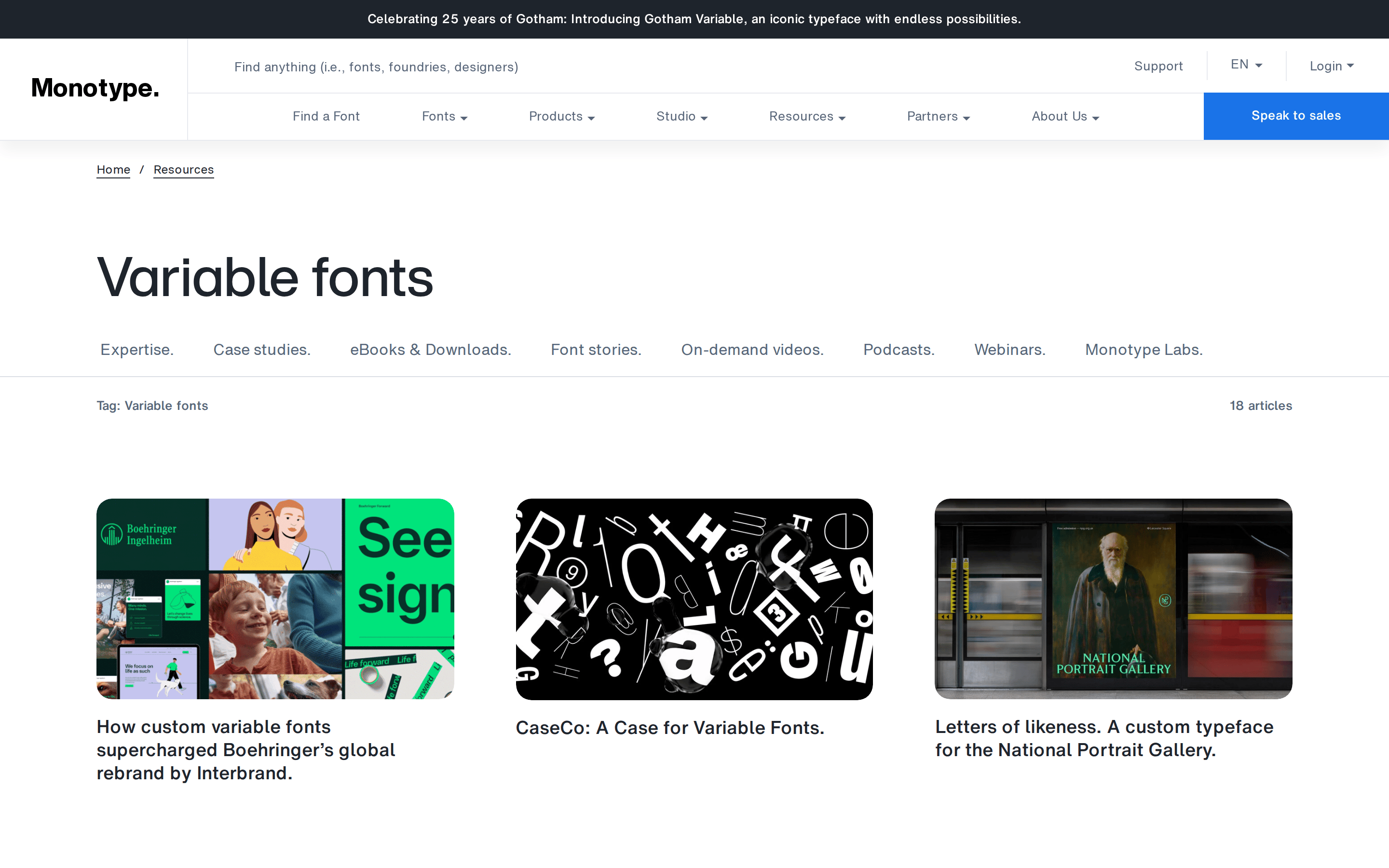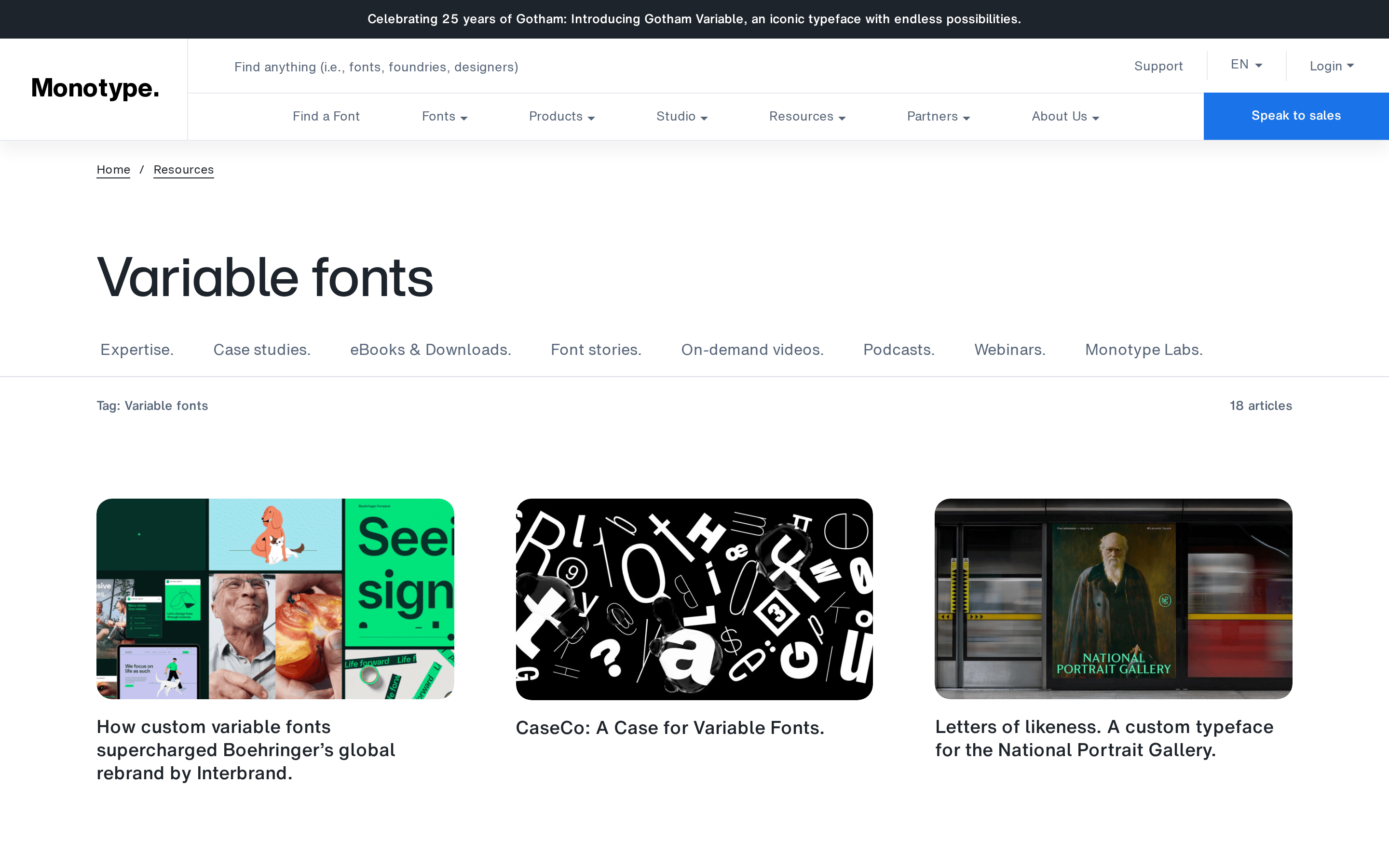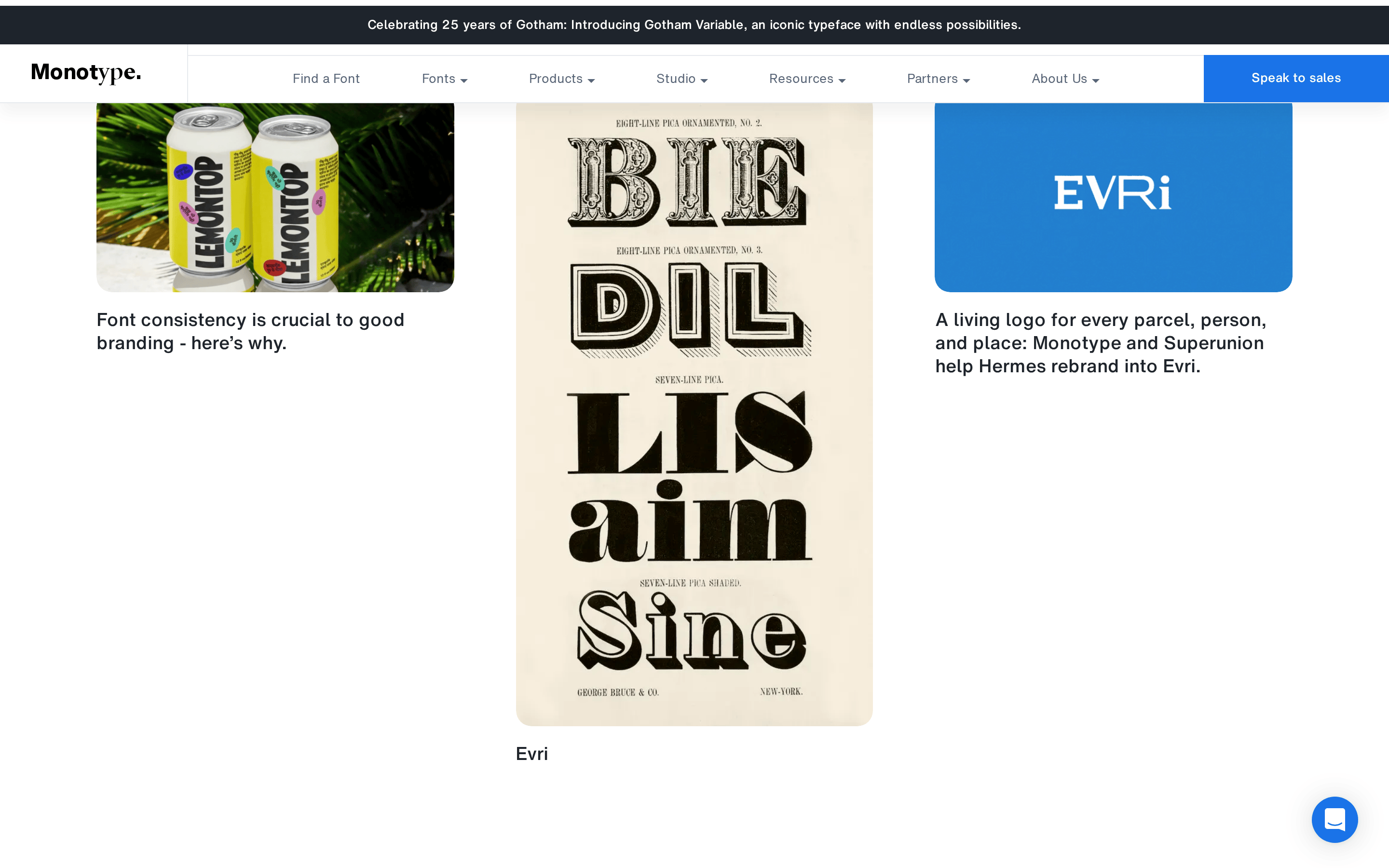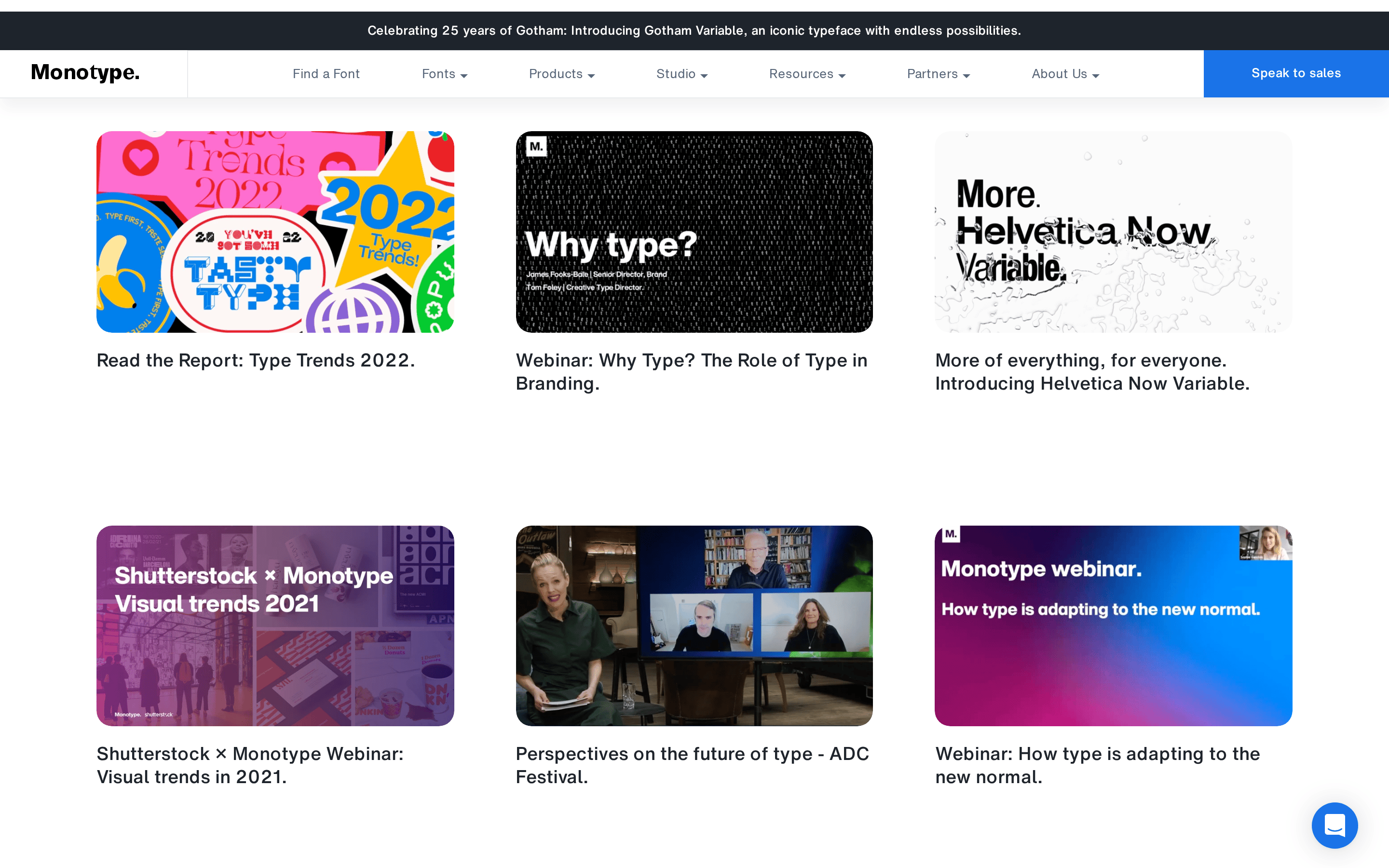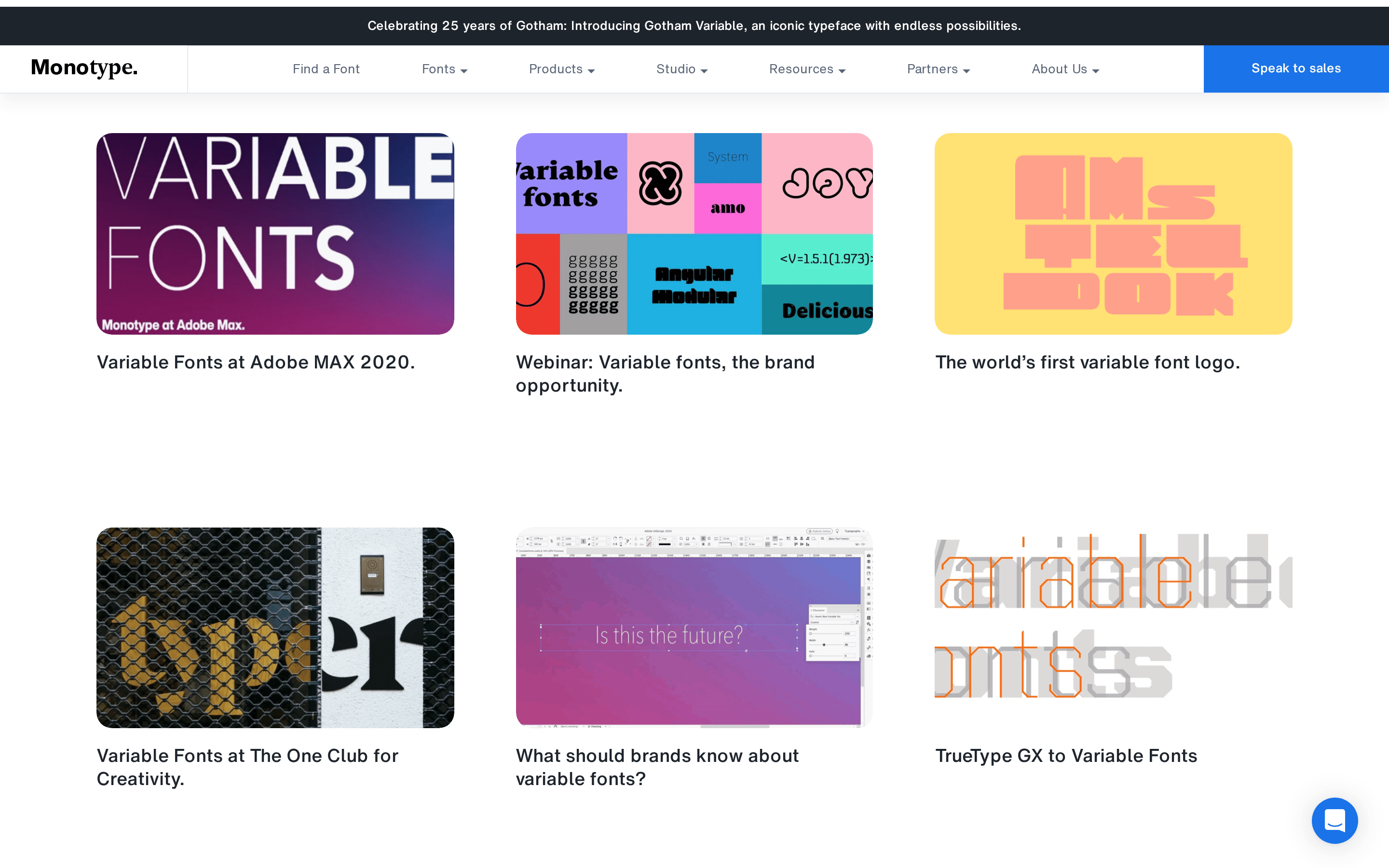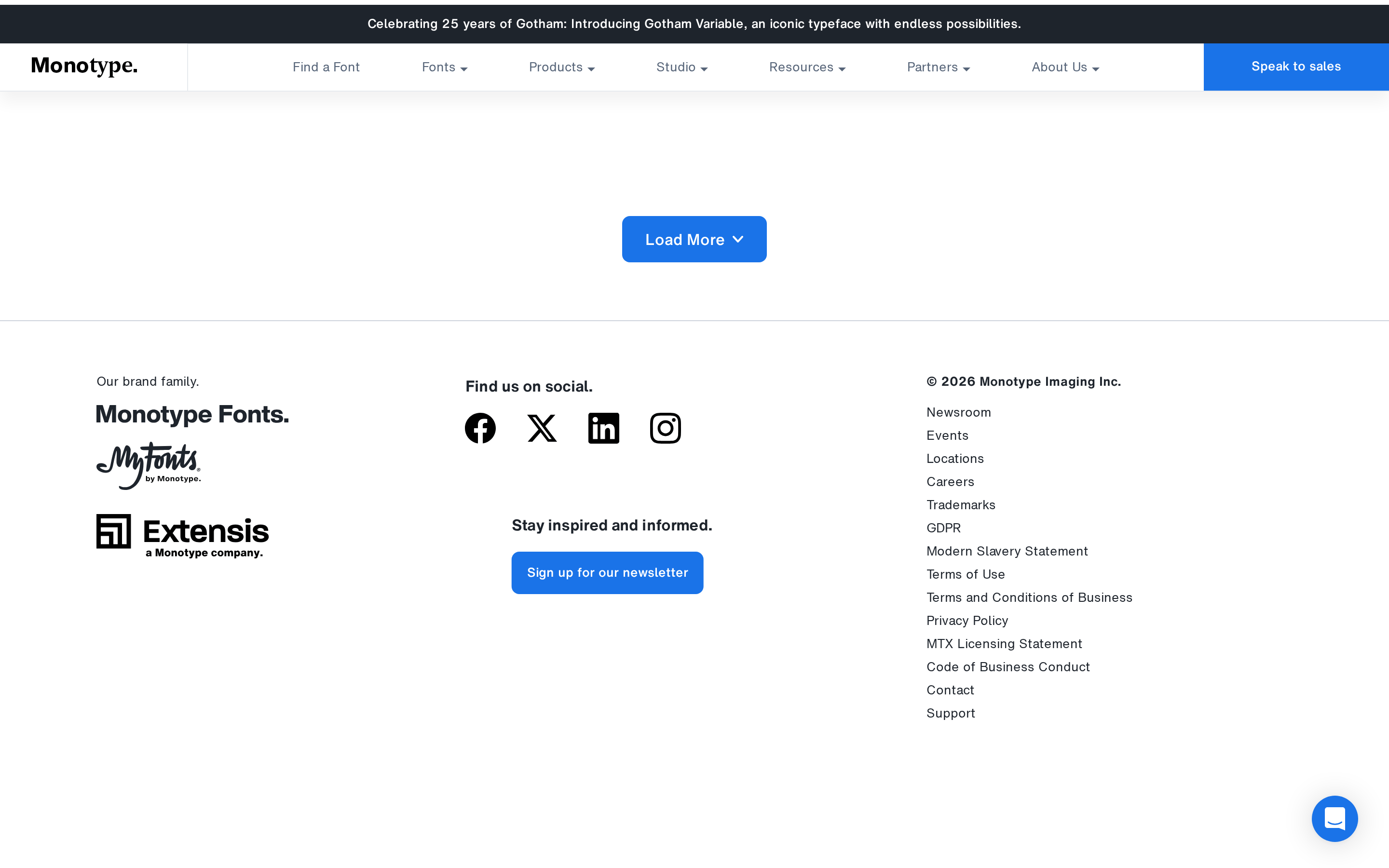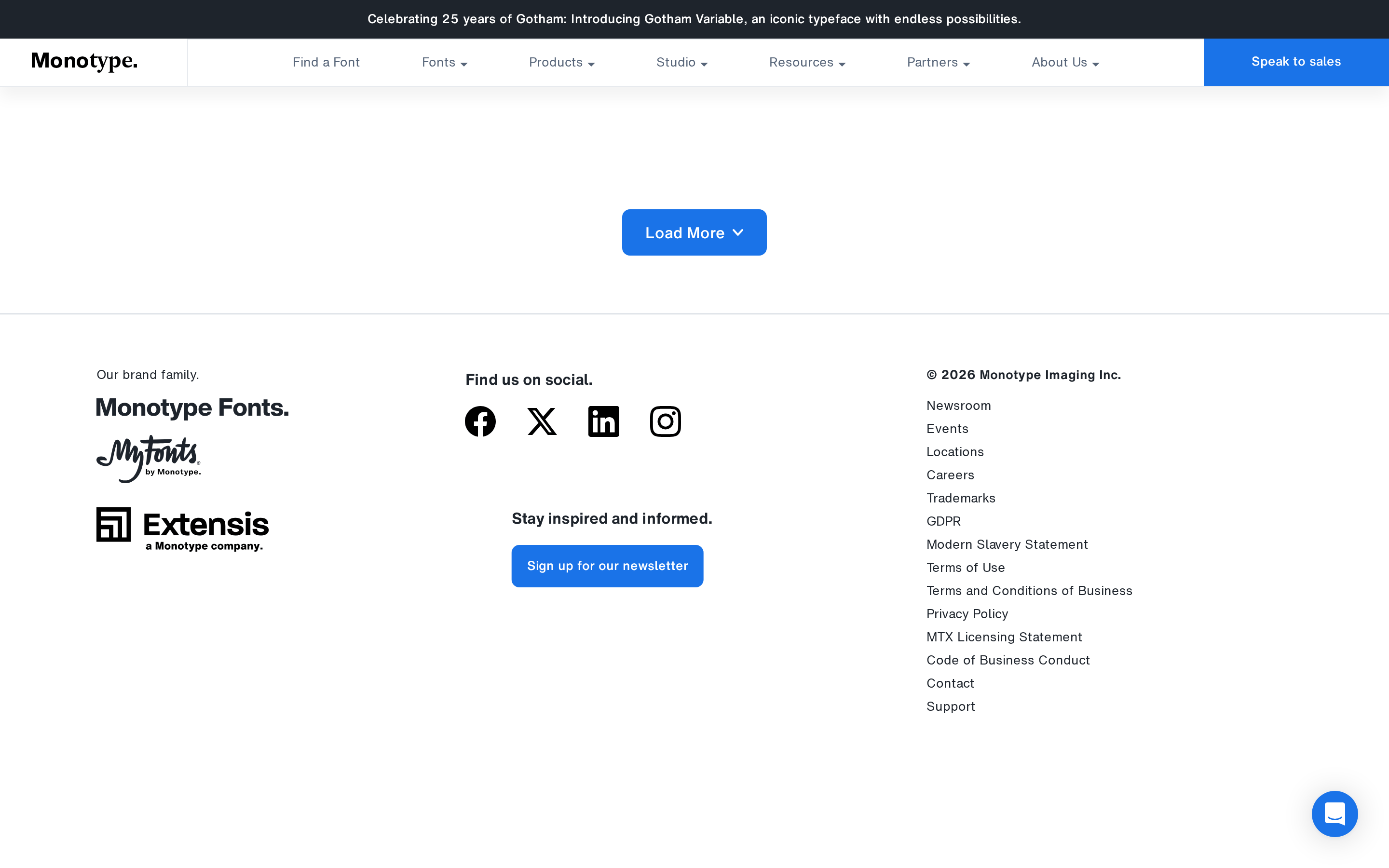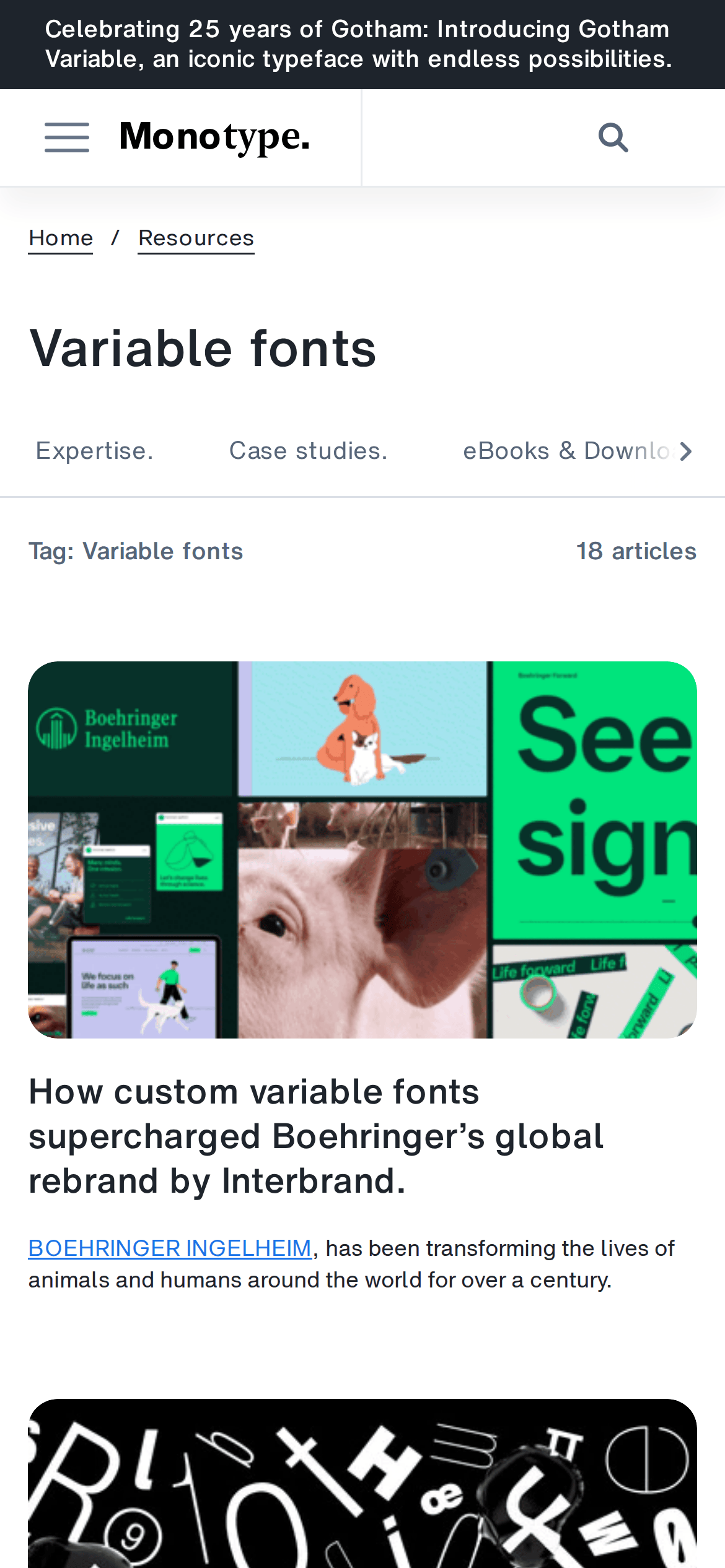
Clean, high-contrast neutral canvas with a single functional blue accent
Typography
grotesque-sans · monospace
display56px · 500
h224px · 500
body16px · 400
Use standard system fallback stacks (Helvetica, Arial) for consistent UI rendering · Maintain a modular scale for clear typographic hierarchy · Keep body text weight at 400 for optimal readability
Standard 4px grid system with consistent 24px gutters
This is a professional typography resource hub and foundry website. It uses a clean, high-contrast palette centered on white (#FFFFFF) and deep navy ink (#1E242C), with a single functional blue accent (#1A73E8) for primary actions. The typography relies on standard grotesque-sans categories for both display and body text, utilizing Helvetica and Arial fallback stacks. The layout is a spacious, left-aligned structure with generous whitespace. Critical design rules: maintain the strict single-accent color system, preserve the clean typographic hierarchy, and use subtle, functional shadows instead of heavy decorative ones. Avoid cluttered UI or overly playful elements that would detract from the authoritative, educational tone.